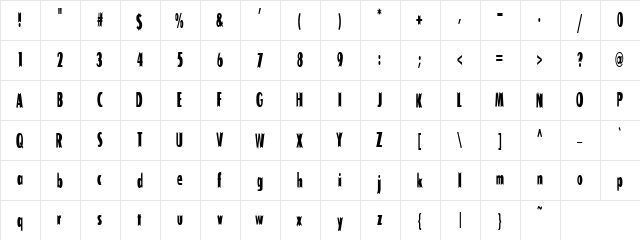
Maska chaska Regular
Design Context for Maska chaska Typeface
Maska chaska takes a measured approach to typography — its balanced proportions and neutral character make it a reliable workhorse for both digital and print work.